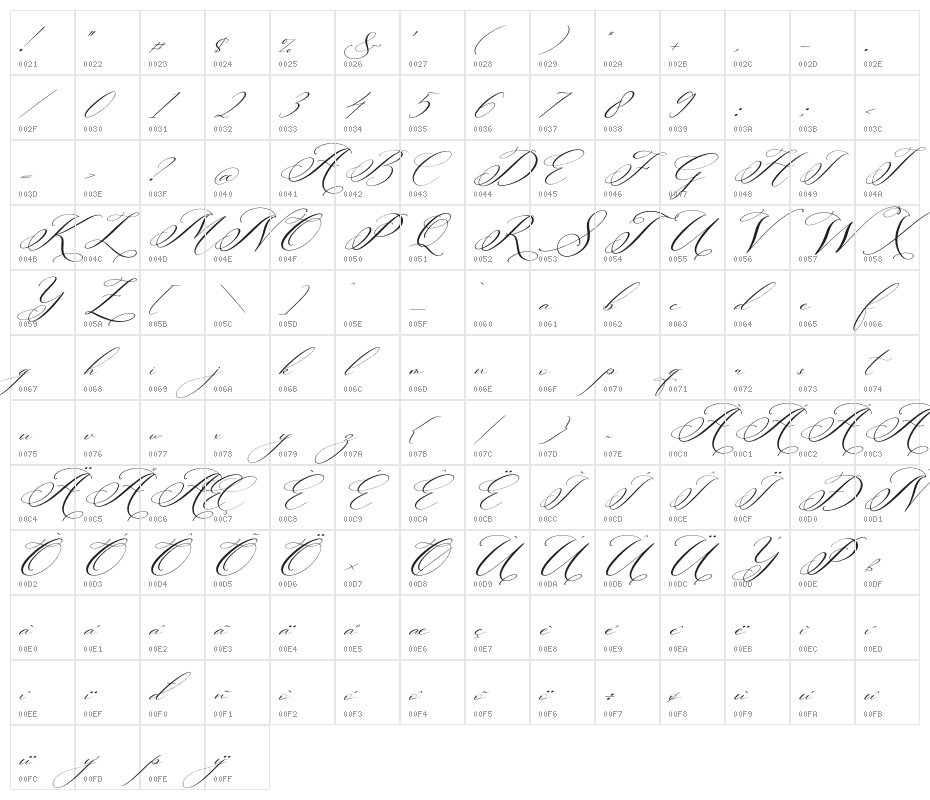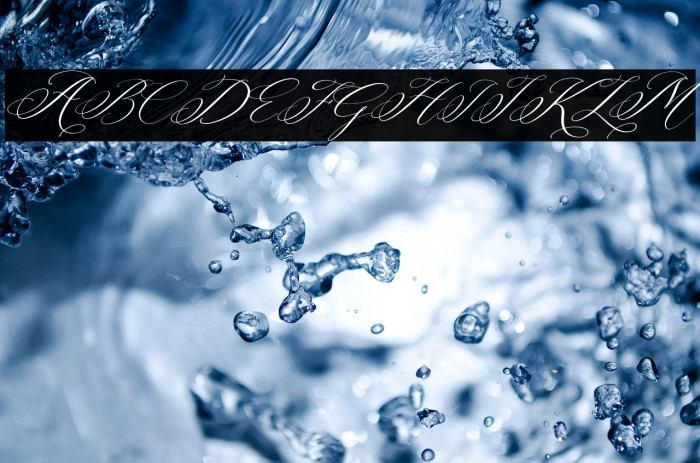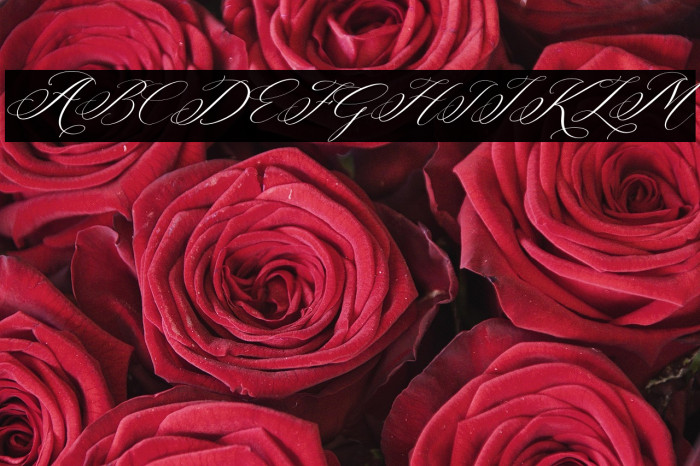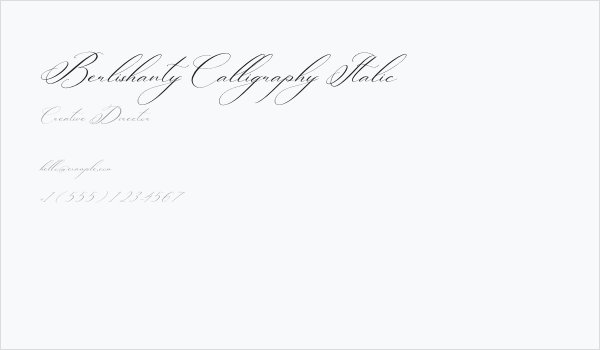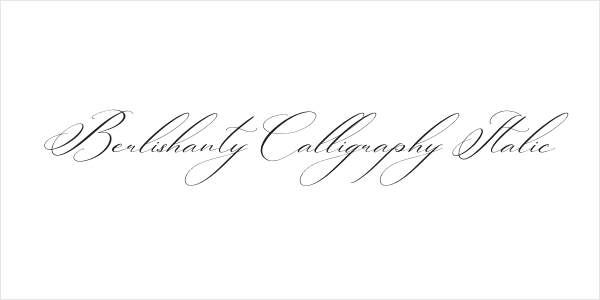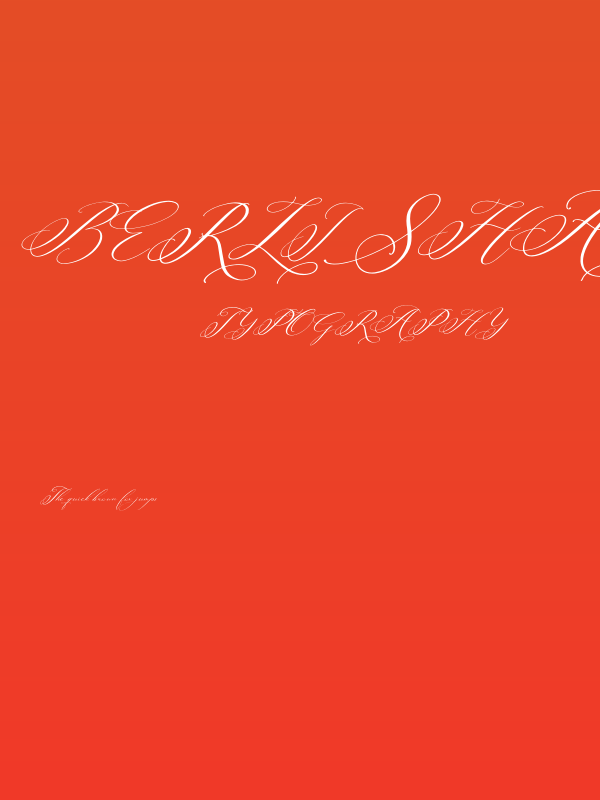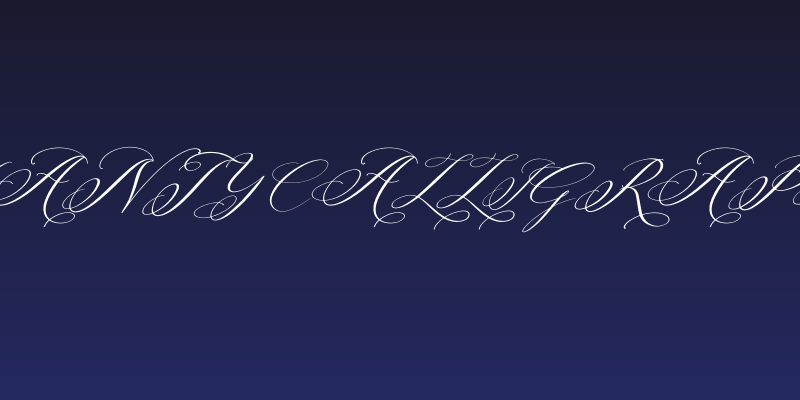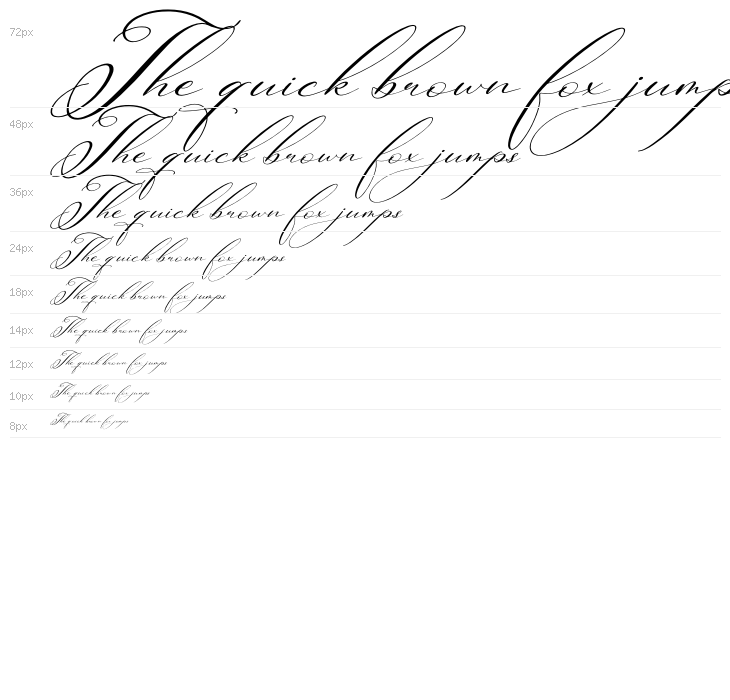
Berlishanty Calligraphy Italic Font
Berlishanty Calligraphy Italic Description
This elegant calligraphy font features flowing, interconnected strokes that create a sense of fluidity and grace. The uppercase letters are ornate, with intricate loops and swirls, while the lowercase letters maintain a consistent style, emphasizing smooth curves and delicate lines. The numerals are designed with a similar flair, adding a touch of sophistication. Special characters are crafted to match the overall aesthetic, ensuring a cohesive look across all text elements. This font exudes a sense of luxury and refinement, making it ideal for projects that require a touch of elegance.